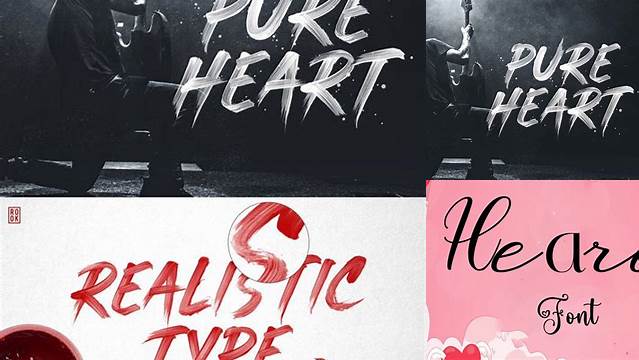
Hey guys! Are you looking to add a personal touch to your designs? Well, you're in the right place! A pure heart brush font can be the perfect way to inject some handmade charm into your projects. This article is your ultimate guide to understanding, finding, and downloading these fantastic fonts for free. We'll dive into what makes a brush font special, where you can find them without spending a dime, and how to use them effectively. So, let's get started and explore the world of pure heart brush fonts!
What Makes a Pure Heart Brush Font Special?
Brush fonts, especially those with a pure heart vibe, are all about authenticity and personality. Unlike standard fonts that have a clean, uniform appearance, brush fonts mimic the strokes of a paintbrush or marker. This gives them a natural, hand-drawn feel that can make your designs stand out. The unique imperfections and variations in line thickness add character and warmth, making them ideal for projects that need a human touch. When we talk about a pure heart brush font, we're often referring to fonts that evoke feelings of sincerity, love, and authenticity. These fonts typically have smooth, flowing lines and a friendly, approachable style. They're perfect for projects like wedding invitations, greeting cards, inspirational quotes, and branding materials for businesses that want to convey a sense of trustworthiness and care.
One of the key characteristics of a pure heart brush font is its ability to convey emotion. The fluid strokes and slightly imperfect edges create a sense of movement and energy, while the overall design exudes warmth and approachability. This makes them an excellent choice for designs that aim to connect with the audience on an emotional level. For example, a non-profit organization might use a pure heart brush font in their marketing materials to communicate their genuine care for the cause they support. Similarly, a small business owner might use this type of font in their logo and branding to create a friendly and welcoming image. The versatility of a pure heart brush font also lies in its adaptability to various design styles. While it shines in projects that call for a rustic or handmade aesthetic, it can also be incorporated into more modern designs to add a touch of personality and warmth. Imagine using a pure heart brush font for the headlines of a minimalist website, or pairing it with a clean sans-serif font in a brochure. The contrast between the two styles can create a visually appealing and engaging effect. Furthermore, the nuances in stroke thickness and the slight variations in letterforms make each word feel unique and handcrafted. This can be especially valuable in projects where you want to create a sense of exclusivity or luxury. For example, a high-end boutique might use a pure heart brush font in their signage or packaging to convey a sense of artistry and attention to detail.
In summary, a pure heart brush font is special because it combines the charm of hand-drawn lettering with the practicality of digital typography. Its ability to convey emotion, its adaptability to various design styles, and its unique character make it a valuable asset for any designer looking to add a personal touch to their work. So, whether you're designing a wedding invitation, creating a logo for a small business, or crafting an inspirational quote, a pure heart brush font can help you communicate your message with sincerity and warmth.
How to Use Pure Heart Brush Fonts Effectively
Okay, so you've found the perfect pure heart brush font – awesome! But now what? Using these fonts effectively is key to making your designs shine. It's not just about slapping the font on your project; it's about understanding how to pair it with other elements, use it in the right context, and avoid some common pitfalls. So, let's dive into some tips and tricks for getting the most out of your new pure heart brush font.
First off, context is everything. A pure heart brush font is fantastic for projects that need a personal, handmade touch, but it might not be the best choice for everything. Think about the overall tone and message you're trying to convey. These fonts are perfect for wedding invitations, greeting cards, inspirational quotes, logos for creative businesses, and anything that needs a warm, friendly feel. However, they might not be ideal for formal documents, technical manuals, or projects that require a more professional or serious tone. Pairing fonts is another crucial aspect of effective typography. A pure heart brush font often looks best when paired with a clean, simple sans-serif or a classic serif font. This creates a nice contrast and prevents your design from feeling too overwhelming. For example, you could use your brush font for the headlines and a sans-serif font for the body text. This will make your headlines stand out while ensuring that your body text is easy to read. When it comes to size and spacing, less is often more. Brush fonts tend to be quite decorative, so you don't need to make them huge to get noticed. In fact, using them too large can make your design look cluttered and overwhelming. Pay attention to the spacing between letters and lines as well. Brush fonts often have unique letterforms that can cause spacing issues if you're not careful. Adjusting the kerning and leading can make a big difference in the overall readability and visual appeal of your design.
Color also plays a significant role in how your pure heart brush font is perceived. Lighter, softer colors can enhance the delicate and friendly feel of the font, while bolder, darker colors can add a touch of drama. Consider the color palette of your overall design and choose colors that complement the font and the message you're trying to convey. Another thing to keep in mind is readability. While brush fonts are beautiful, they can sometimes be tricky to read, especially in large blocks of text. Try to use them sparingly and make sure your text is large enough to be easily legible. If you're using a brush font for a logo or headline, consider creating a few different versions with varying levels of detail. This will give you more flexibility when using your design in different contexts. For example, you might have a full version with all the flourishes and details for large-format prints, and a simplified version for smaller applications like business cards or website headers. Finally, don't be afraid to experiment and have fun! Typography is an art, and the best way to learn is by trying different things and seeing what works. Play around with different font pairings, sizes, colors, and spacing until you find a combination that you love. And remember, the goal is to create a design that is both beautiful and effective, so always prioritize readability and clarity. By keeping these tips in mind, you can use your pure heart brush font to create designs that are truly special and memorable.